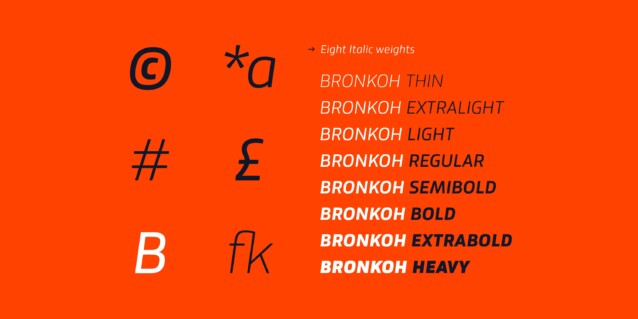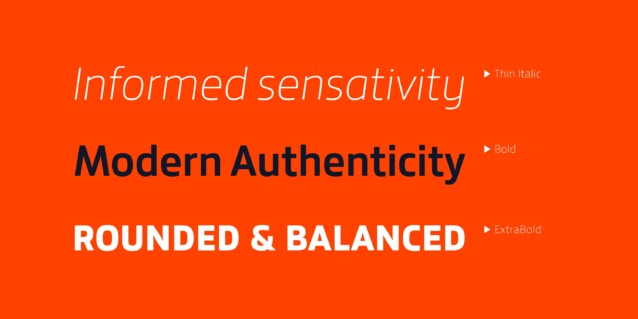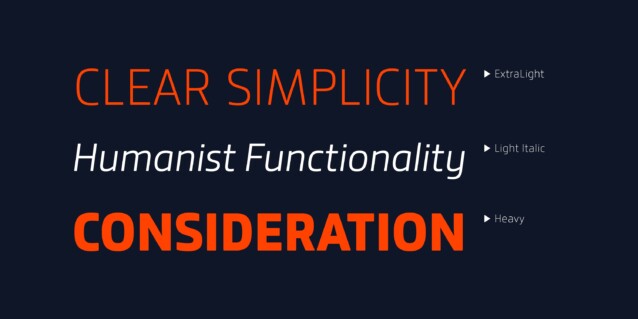
Bronkoh Font Family
Bronkoh Font is a sans-serif font family from Brink that defies convention with a playful twist. Bronkoh aims to give a friendly face and soft touch to type both on screen and in print. Humanist forms and generous apertures make this a sturdy and legible face while its softened curves and terminals give it an approachable and welcoming spirit. The large character set and extensive latin language support make Bronkoh a highly functional font; This in conjunction with eight weights from thin to heavy, and matching italics add to its versatility.